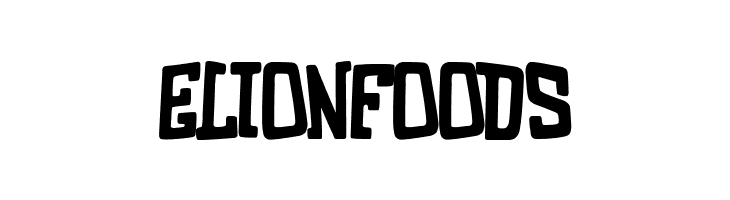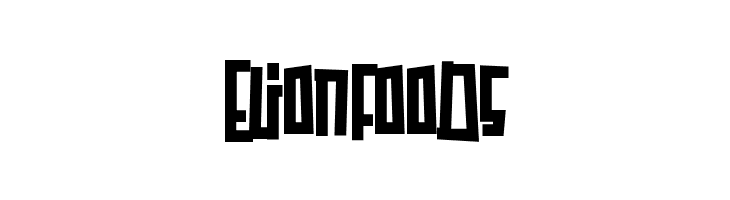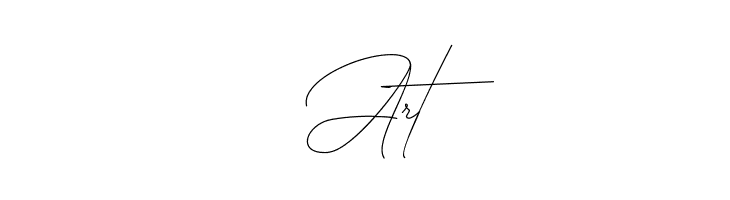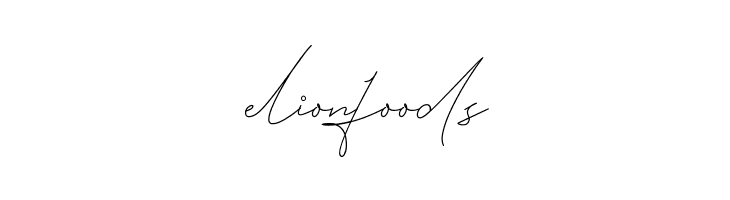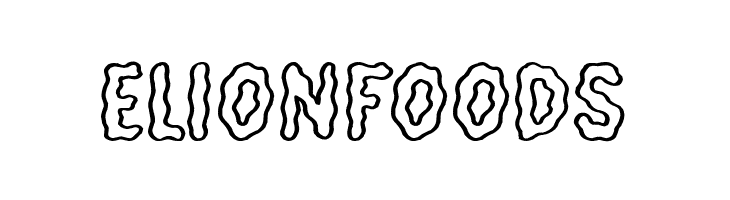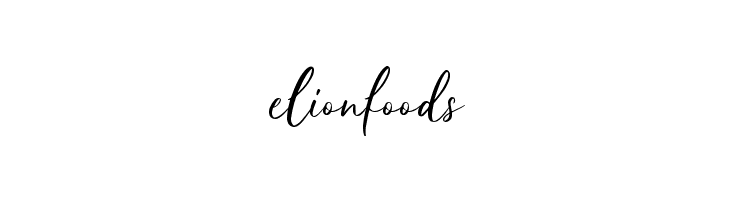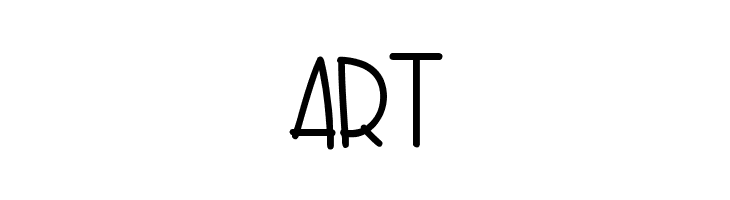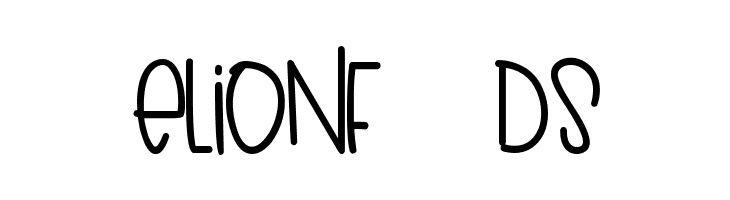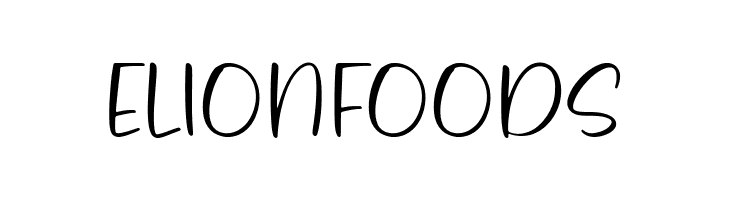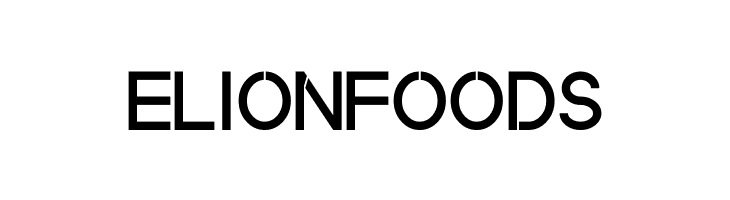
A playful, hand-drawn font with tall, narrow letters and smooth, rounded strokes.
A bold, playful font with a hand-drawn, casual style.
( Fonts by Jonathan S. Harris )
A bold, playful font with wavy, irregular outlines and a dynamic appearance.
A bold, modern sans-serif font with geometric lines and high readability.
A sleek, italicized font with a modern and dynamic style.
( Fonts by Figuree Studio )
A bold, geometric font with a modern, blocky design.
A playful, casual handwritten font with smooth, flowing lines and rounded characters.
A flowing, elegant script font with a sophisticated, handwritten style.
An elegant, flowing script font with graceful, cursive strokes.
( Fonts by Southype )
A medieval and gothic style font with ornate and dramatic letterforms.